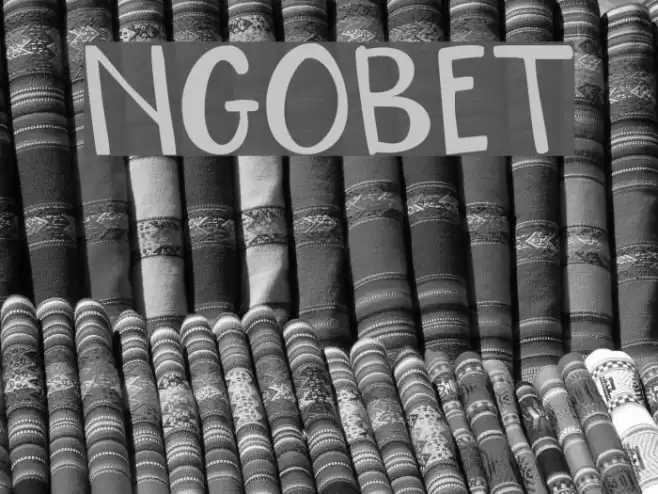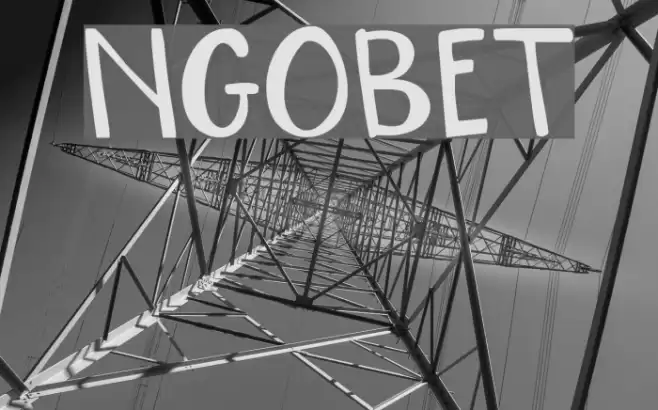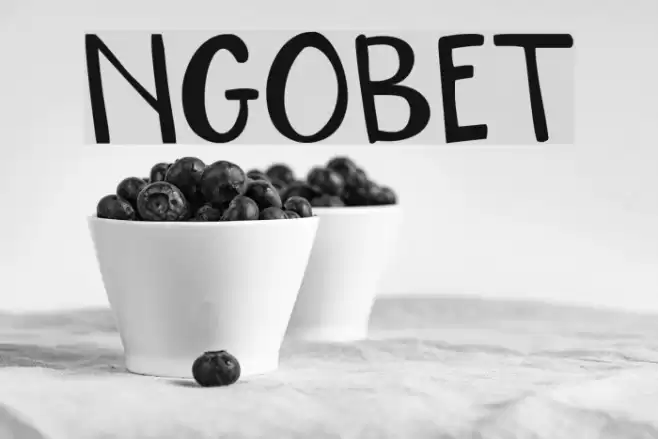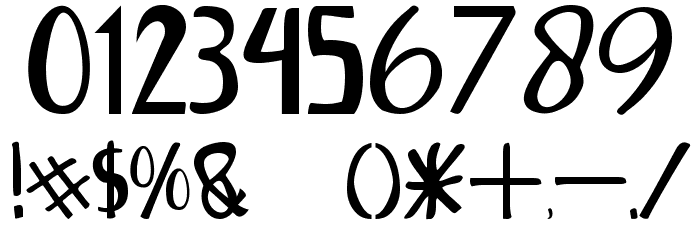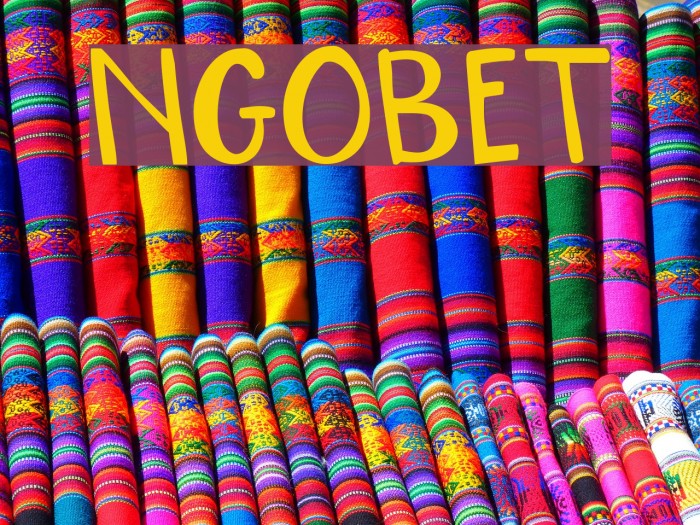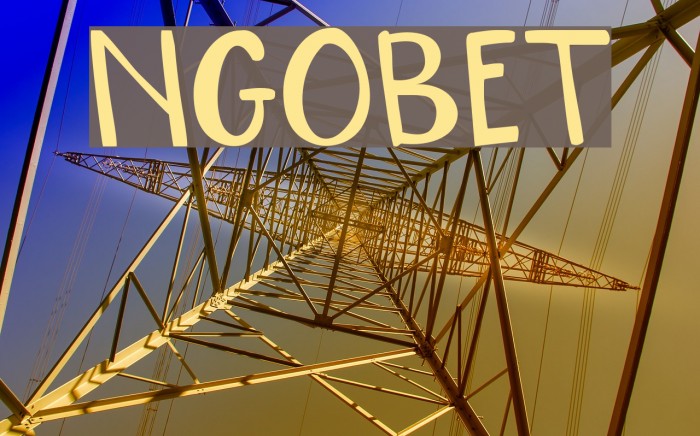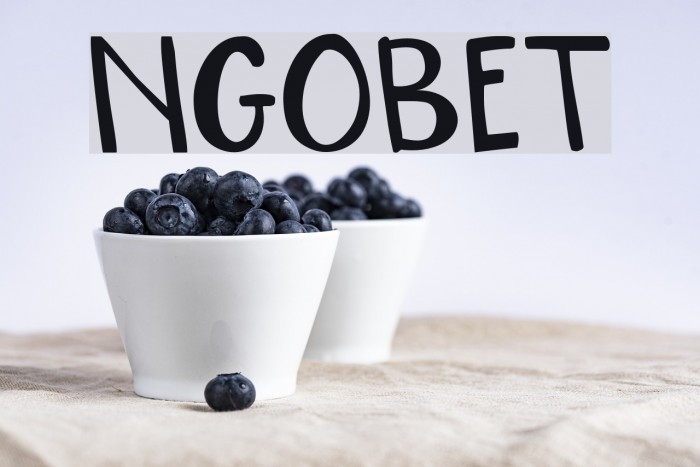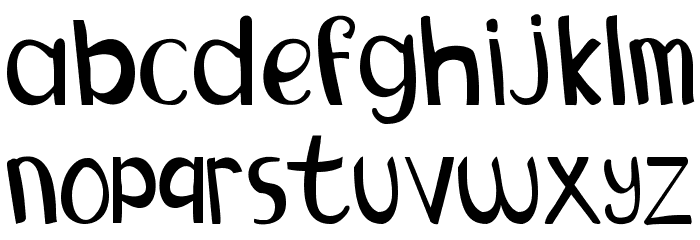
NGOBET Font
NGOBET Description
This playful and whimsical font features a hand-drawn style with irregular, slightly exaggerated curves and strokes. The uppercase letters are bold and dynamic, with varying stroke widths that add a sense of movement and energy. The lowercase letters maintain this lively character, offering a casual and approachable feel. Numbers and special characters are crafted with the same playful spirit, making them stand out with their unique shapes. The font's overall appearance is informal and friendly, suitable for projects that require a touch of creativity and fun.
A playful, hand-drawn font with dynamic curves and a whimsical style from Uncategorized fonts.
- Proposed Projects: Ideal for children's books, creative posters, playful branding, and casual invitations.
- Overall Style: Whimsical